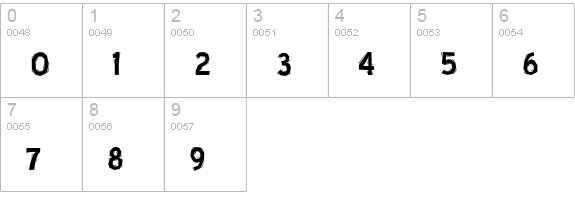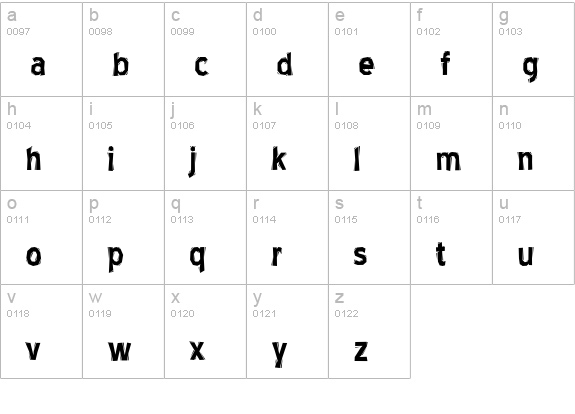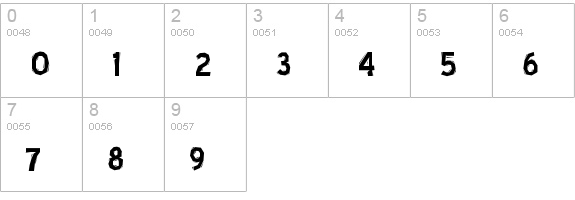
Blue Highway Linocut Font Details
Blue Highway Linocut font is a unique and striking typeface that captures the essence of retro linocut printing. With its rough edges and bold design, this font exudes a sense of vintage charm and artistic flair. The handcrafted look of Blue Highway Linocut adds character and personality to any project, making it perfect for posters, headlines, and branding. What sets Blue Highway Linocut font apart is that it is available for free download at FontsMarket.com. This means that you can easily access and use this eye-catching font in your designs without any cost. Whether you're a designer looking to add a touch of nostalgia to your work or just someone who appreciates quality typography, Blue Highway Linocut font is a fantastic choice that won't break the bank. Download it today and start creating stunning designs with this distinctive and versatile typeface.